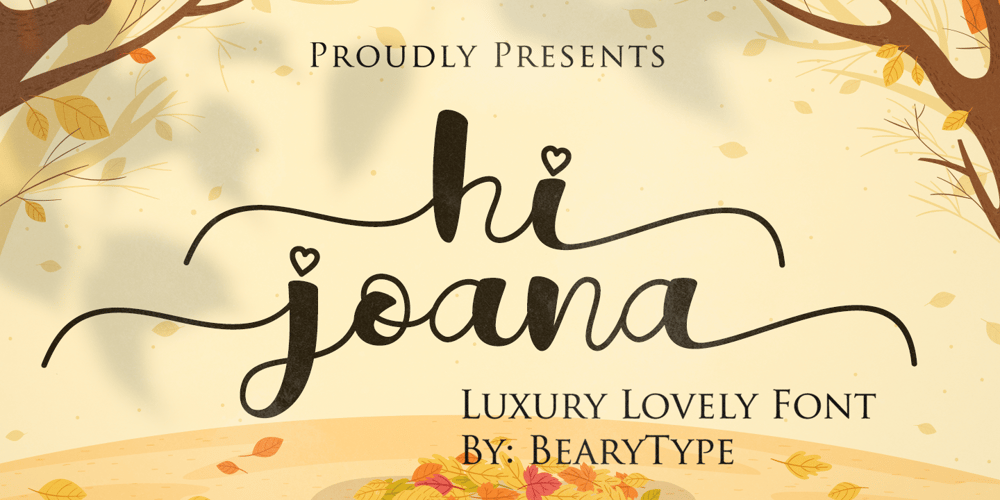
Hi Joana
Hi Joana font
Hi Joana Font Family was designed by Dian Haniffan Hadi and published by Beary. Hi Joana contains 1 styles and family package options. Hi Joana feels equally charming and elegant. It looks stunning on wedding invitations, thank you cards, quotes, greeting cards, logos, business cards and every other design which needs a handwritten touch.This font is PUA encoded which means you can access all of the glyphs and swashes with ease!